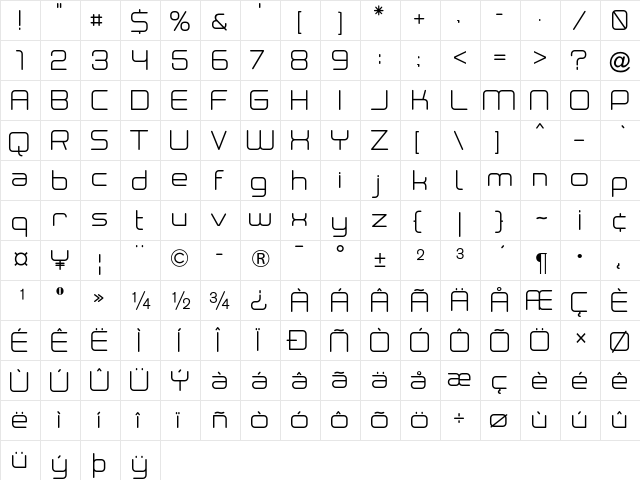
Neogre Regula
| Foundry | Neogrey Creative |
| Designer | Ivan Philipov 2003 |
Design Context for Neogre Typeface
Neogre offers clean, dependable letterforms without strong stylistic allegiance, making it a practical choice for designers who need flexibility.
Pro Tip: Use Neogre in both headline and body roles to test its range before committing to a single application.